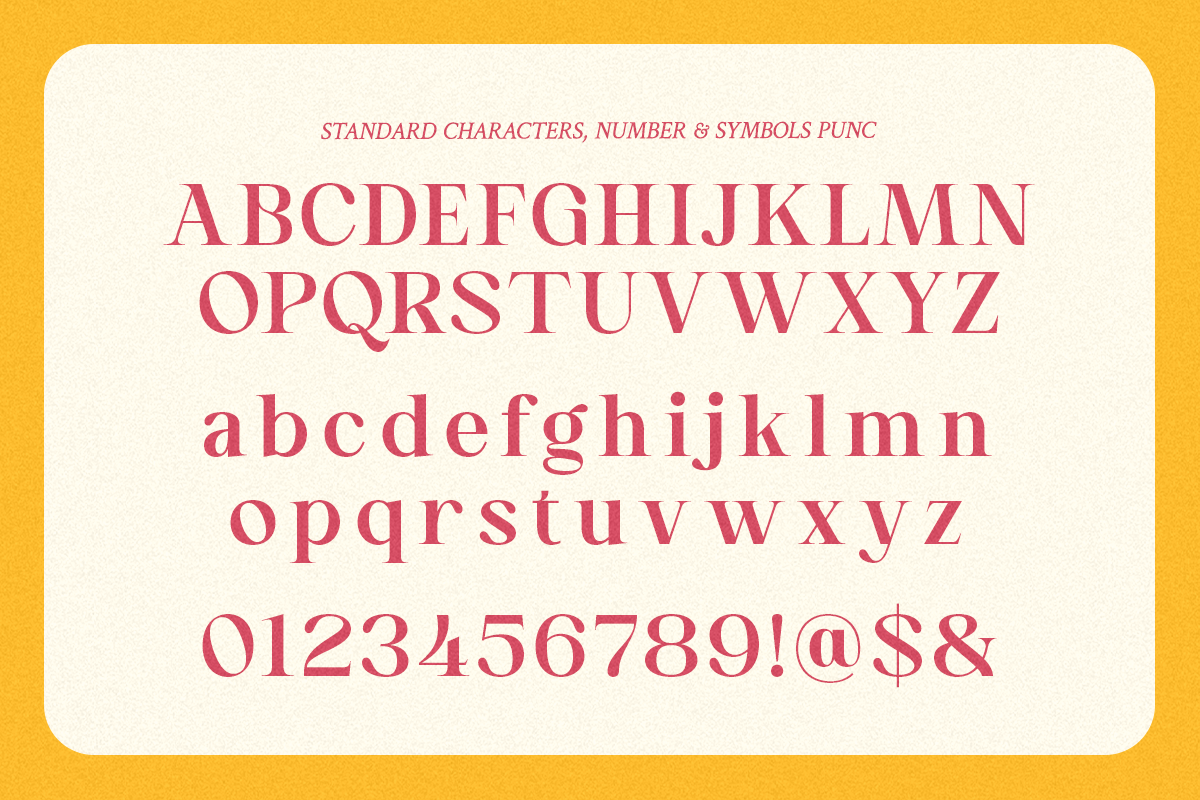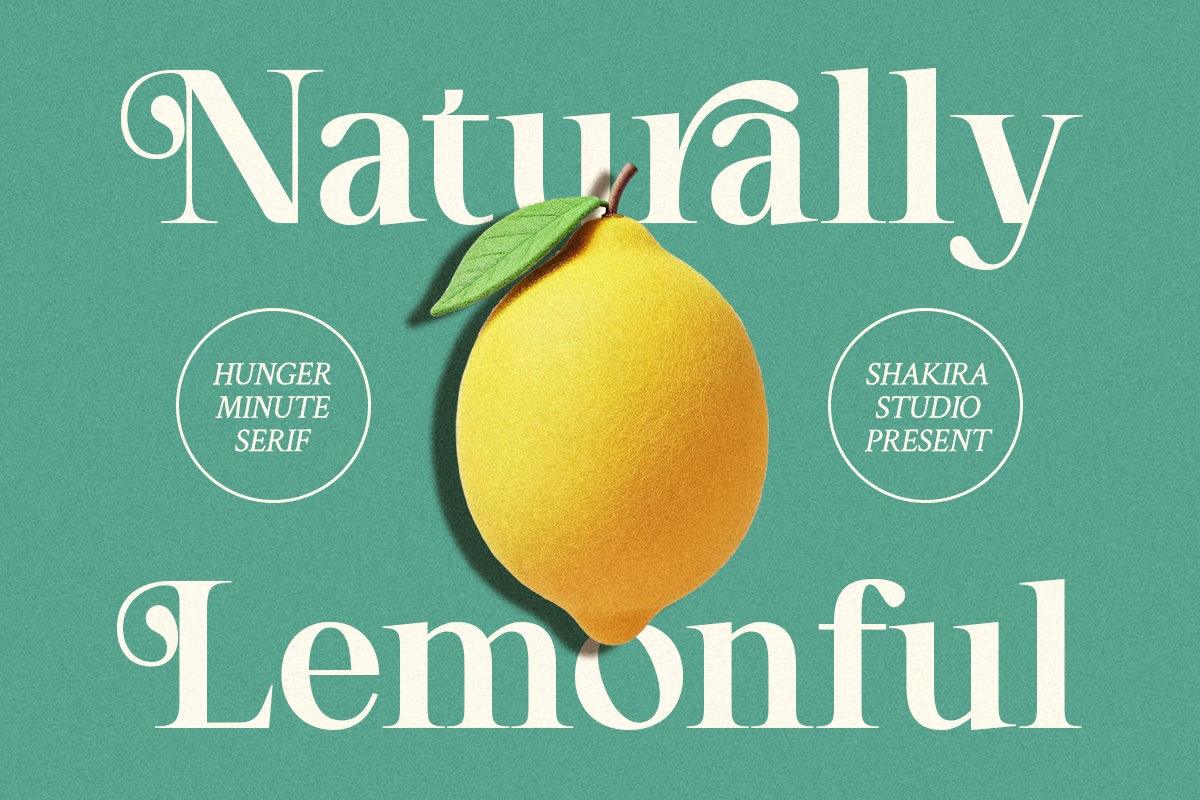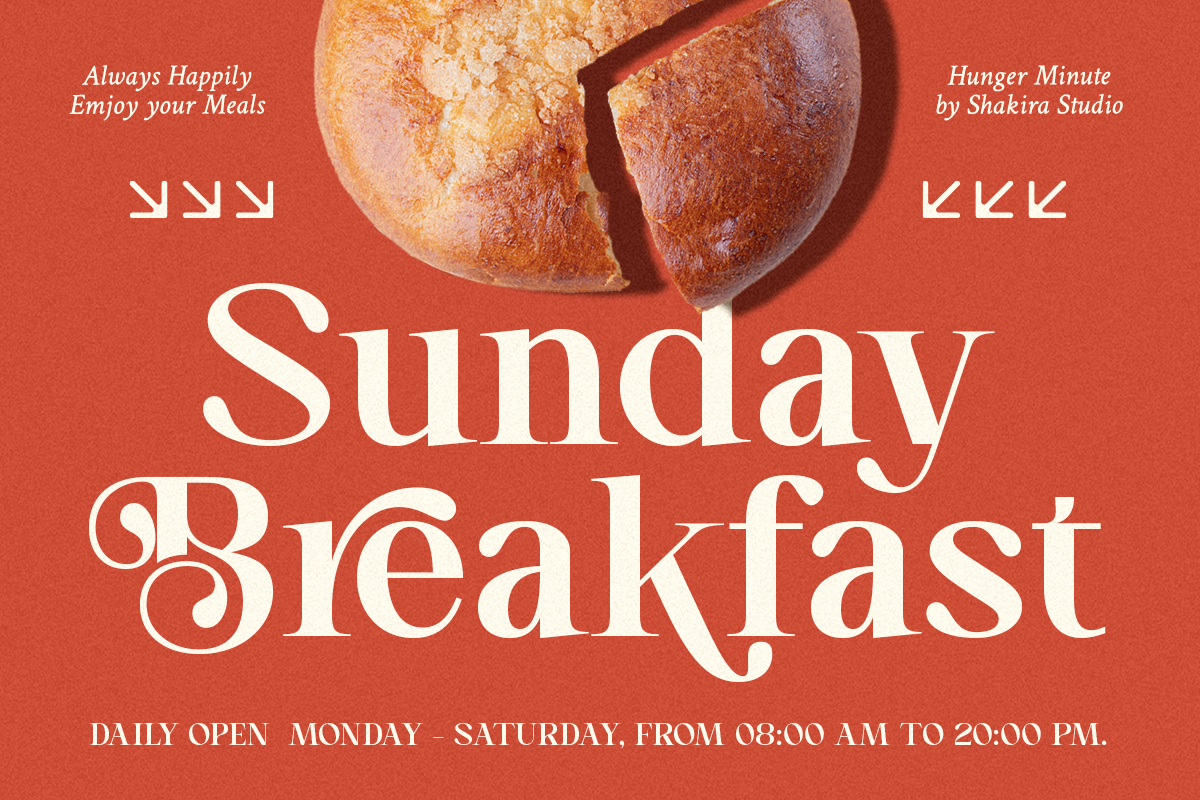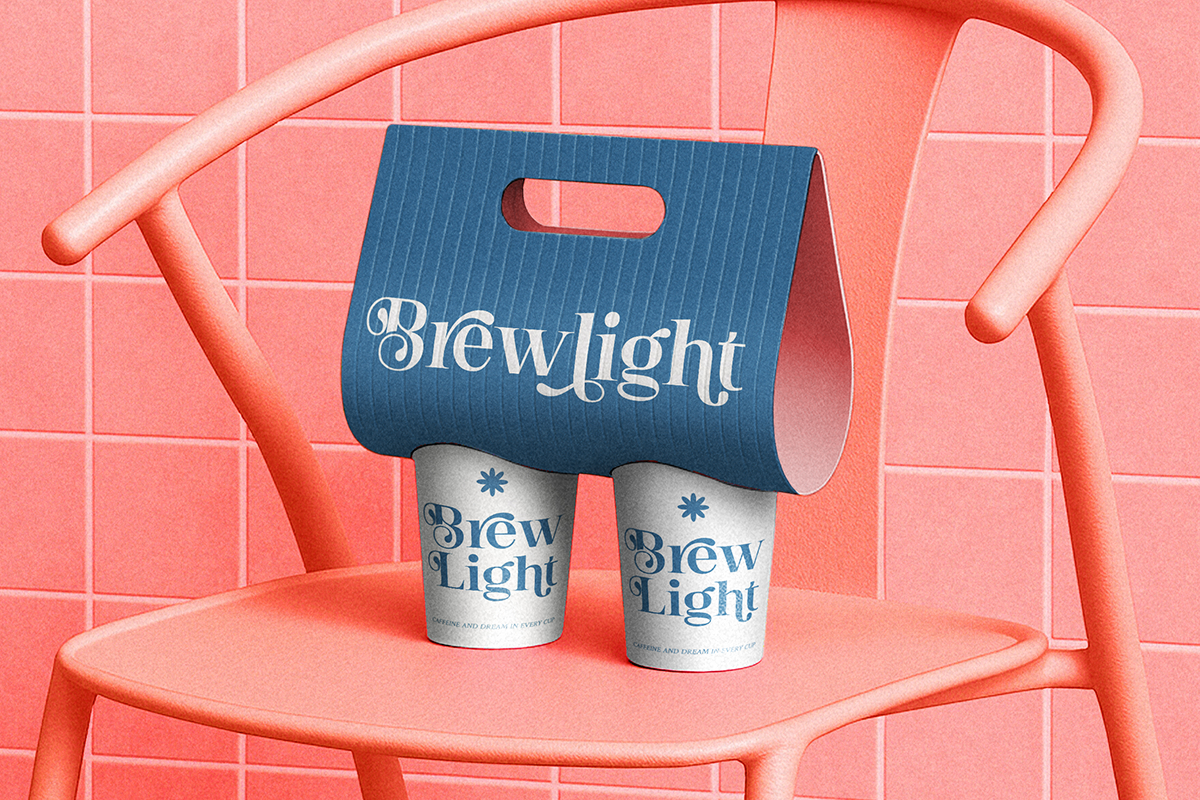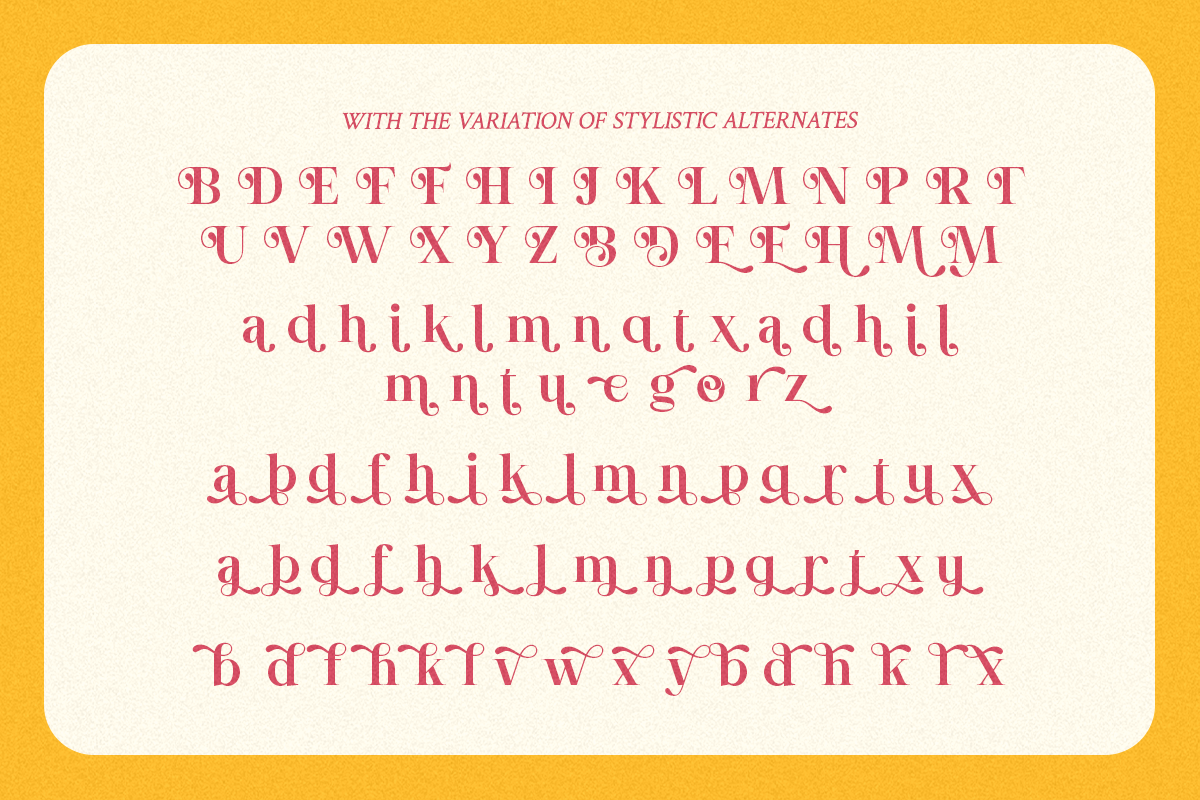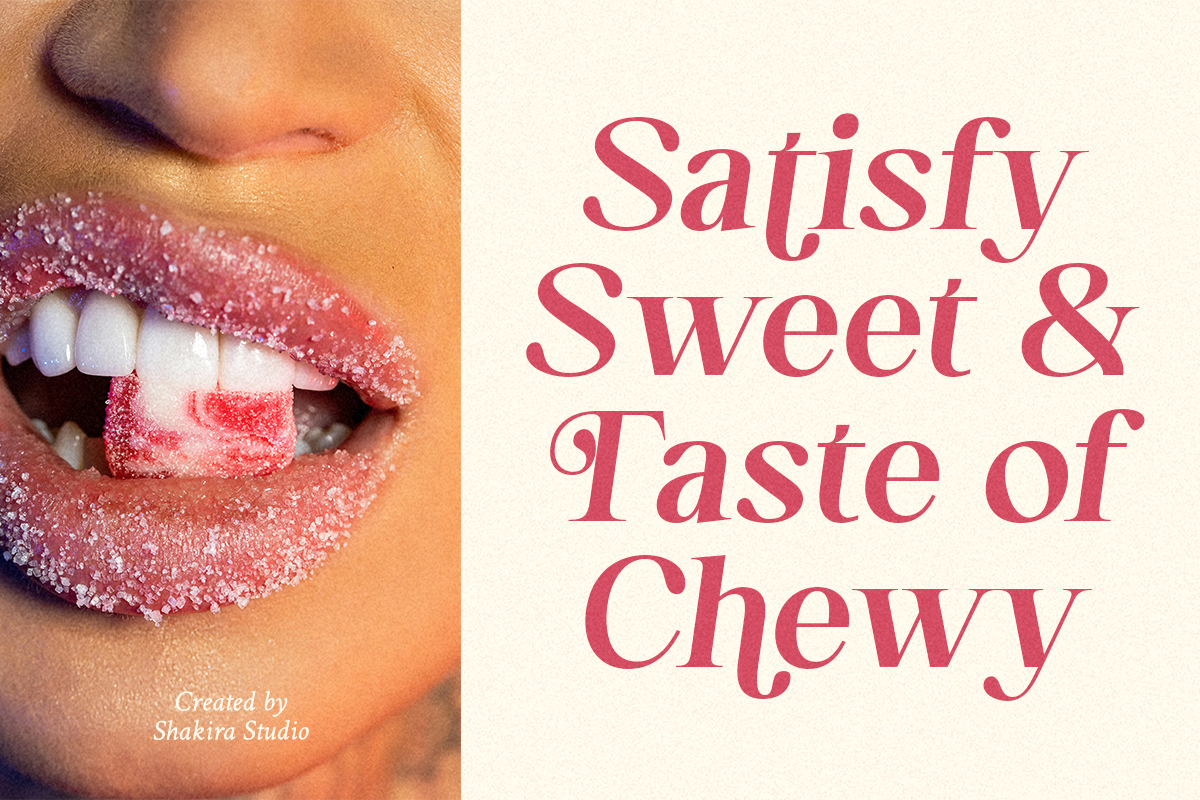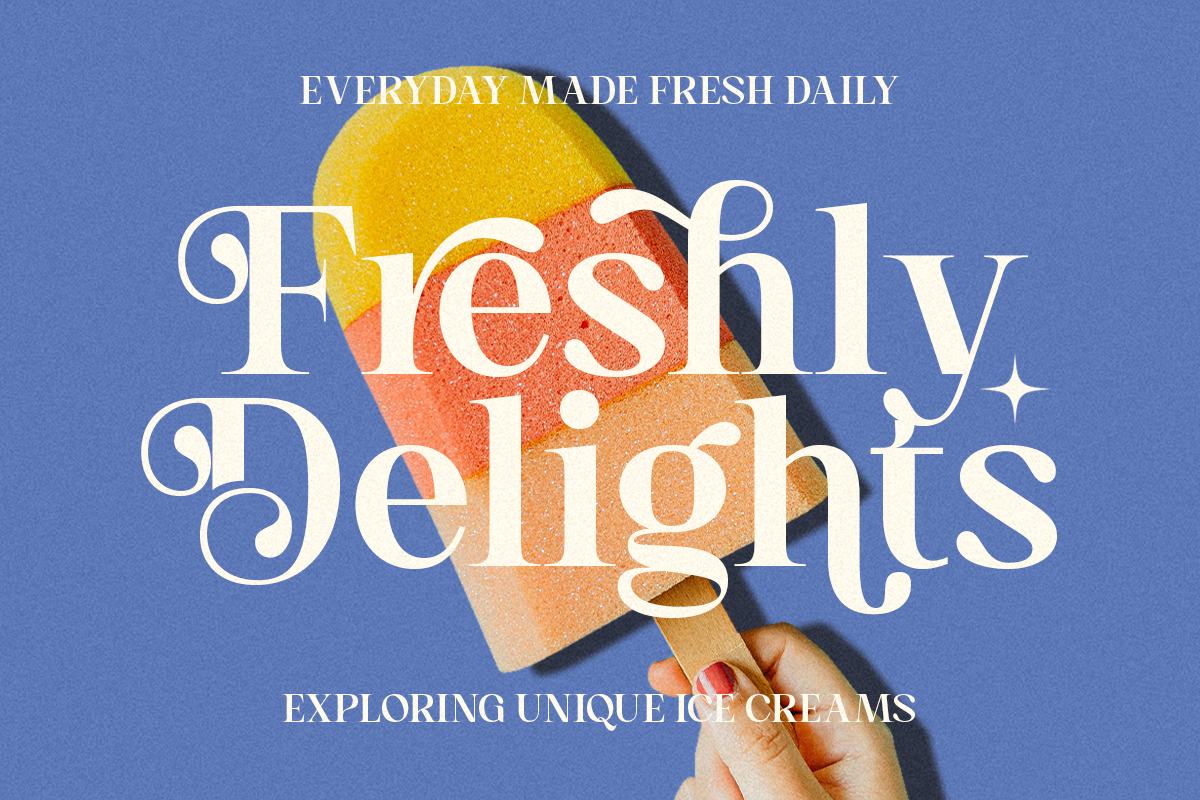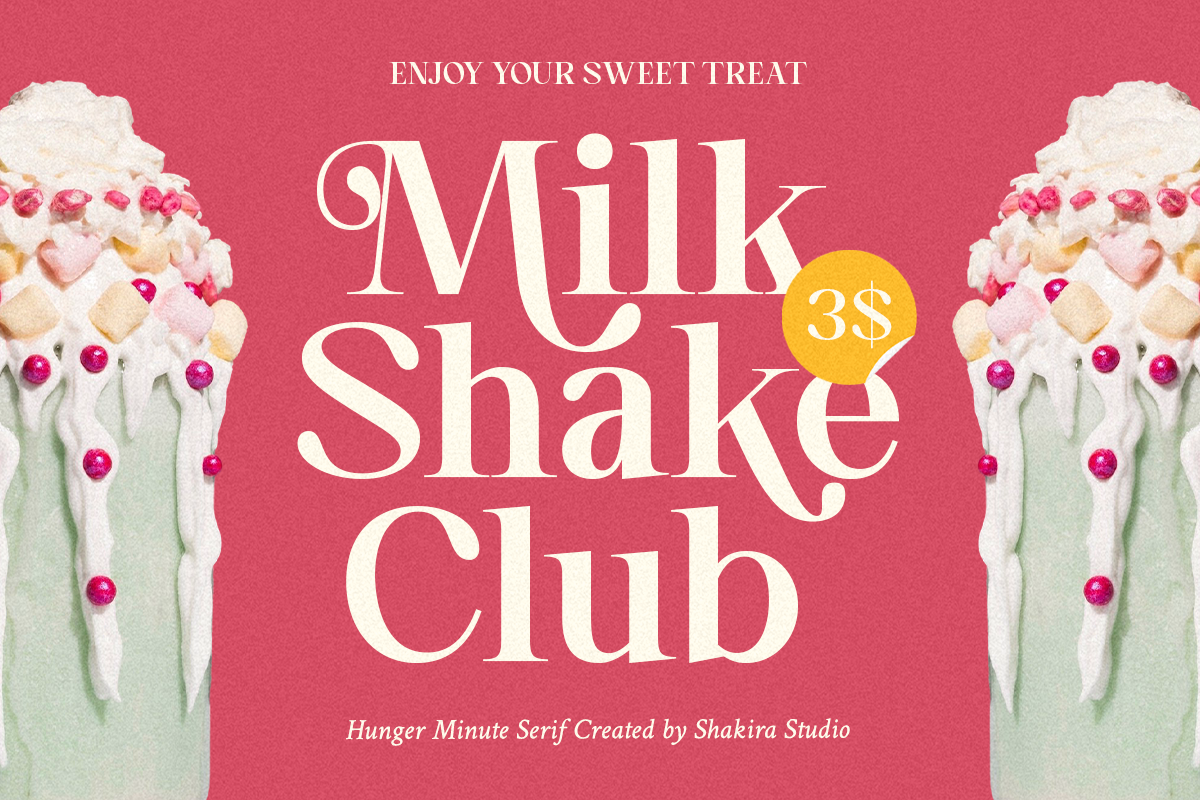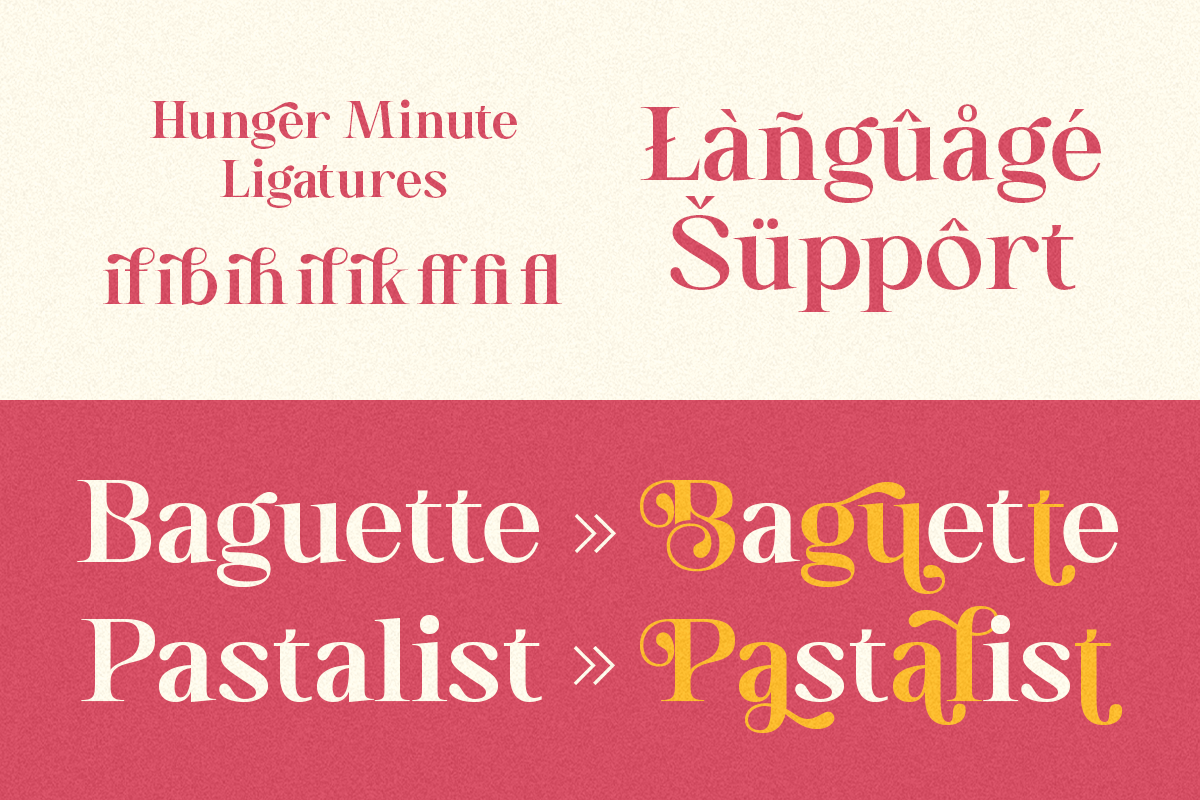
Hunger Minute - Modern Stylish Swash
Hunger Minute is a modern swash serif typeface that’s both classy and approachable. Designed to stand out, it’s perfect for logos, food product labels, café menus, and editorial layouts. Its charming curves and tasteful swashes add a warm human touch to any visual identity.
- Regular & Italic
- Alternates & Swashes
Perfect For: Creative branding, packaging, advertising, and modern editorial projects.